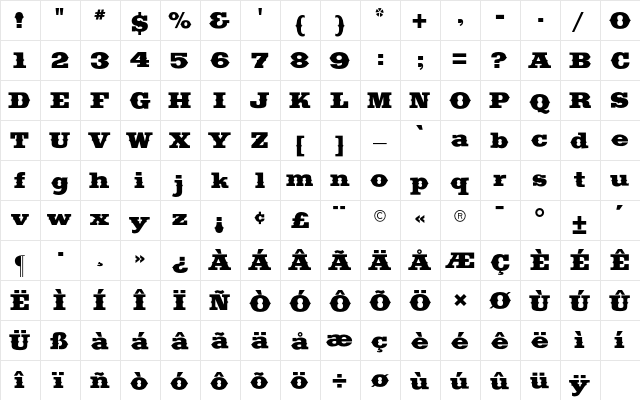
Davison Americana CG Regular
| Foundry | Agfa Corporation |
Design Context for Davison Americana CG Typeface
Davison Americana CG offers clean, dependable letterforms without strong stylistic allegiance, making it a practical choice for designers who need flexibility.